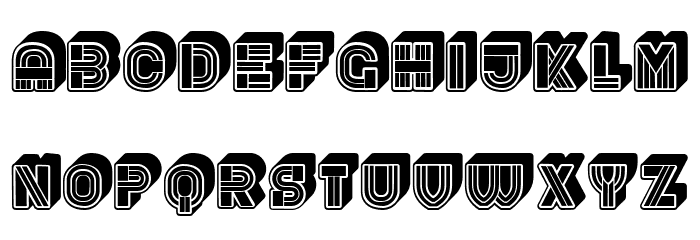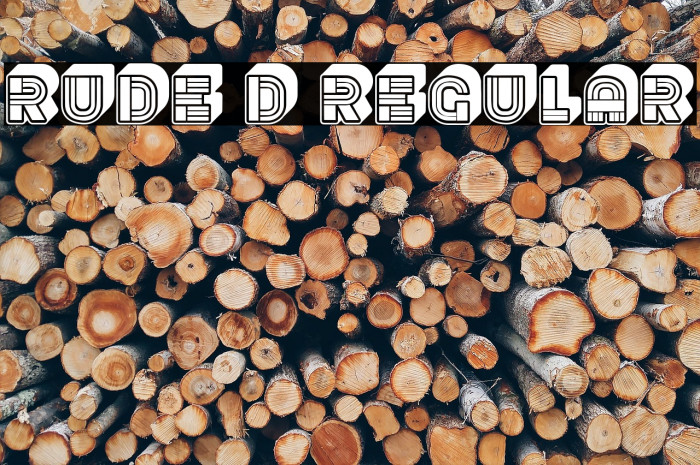
Rude 3D Regular Font
This font features a bold, three-dimensional design with a strong visual impact. Each character is outlined with a thick black border, creating a striking contrast against the white interior. The letters are constructed with a layered effect, giving them depth and a sense of movement. The geometric shapes and clean lines contribute to a modern and dynamic appearance, making it ideal for attention-grabbing designs. The font's unique style is both playful and sophisticated, suitable for a variety of creative applications.
A bold, 3D font with a modern, layered design and strong visual impact.
- Font: Rude 3D Regular
- Proposed Projects: Ideal for posters, headlines, branding, and any project requiring a bold, eye-catching typeface.